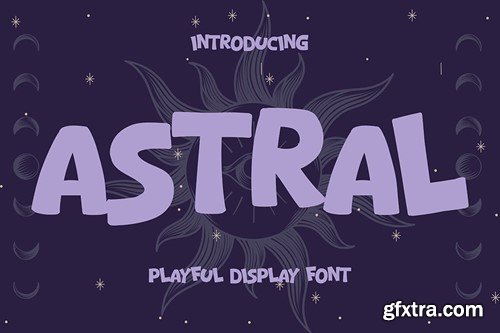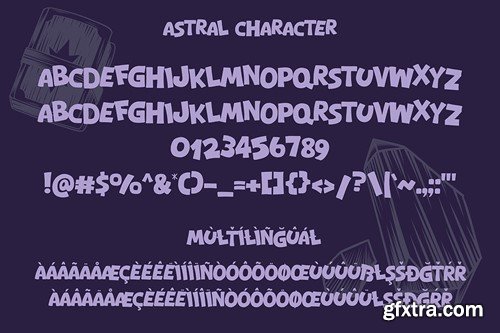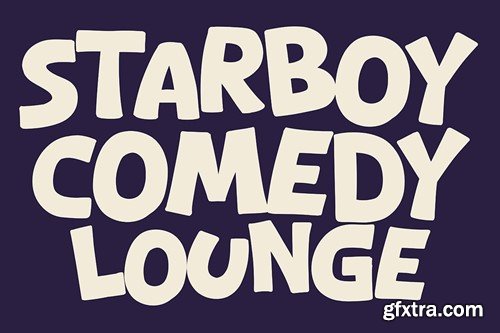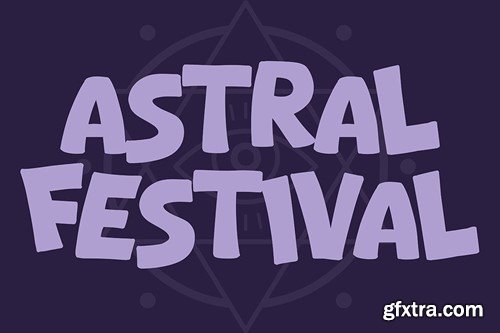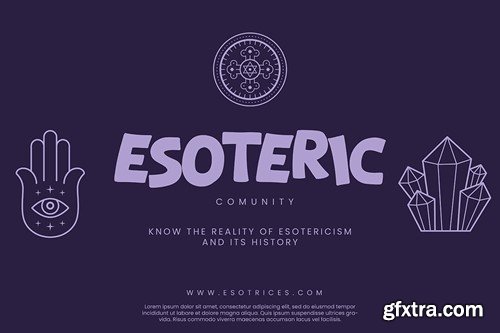
Astral - Playful Display Font KLXZFQF
Astral - Playful Display Font
Introducing Astral, a simple and display font. So perfect for you who needs a typeface for logo designs, magazine, social media, brochure, and many more.
• Uppercase
• Punctuation
• Numerals
• Multilingual Support